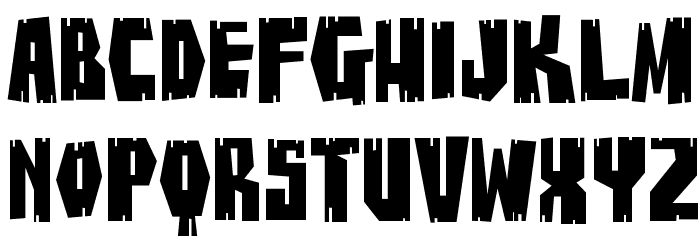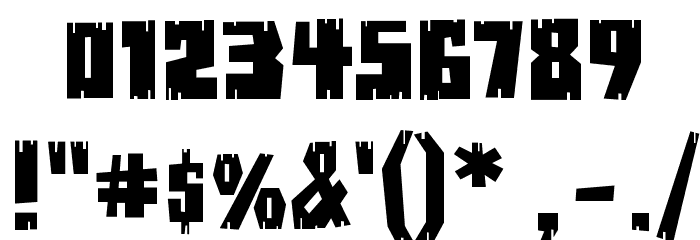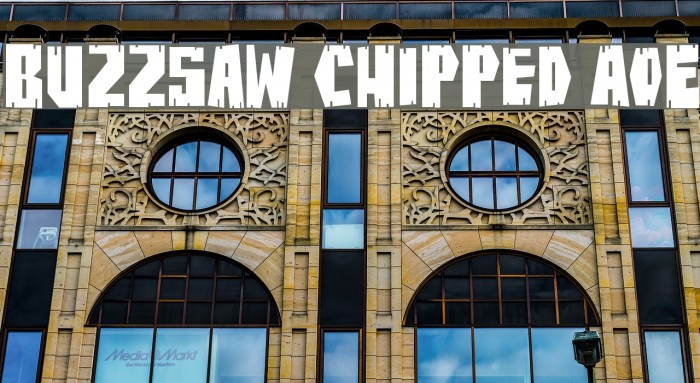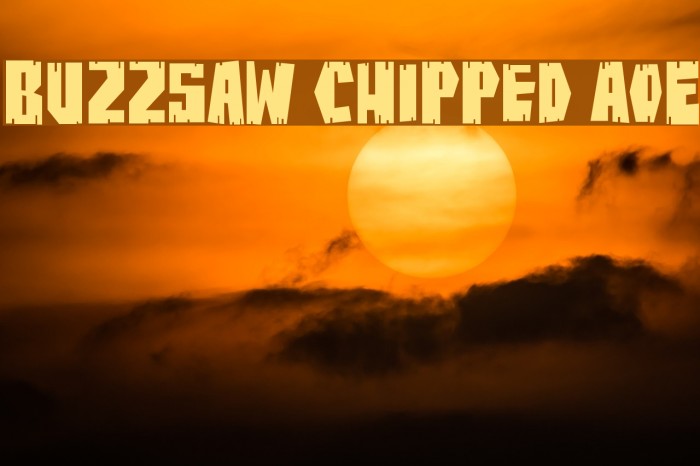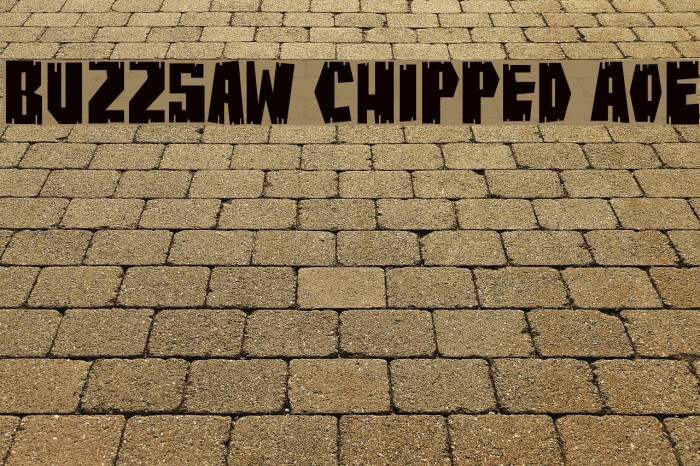
BuzzSaw Chipped AOE Font
This font features a bold and rugged design, characterized by its jagged and chipped edges that give it a distressed, industrial look. The uppercase letters are particularly striking, with sharp angles and irregular outlines that suggest a sense of movement and energy. The lowercase letters maintain this edgy aesthetic, providing a cohesive look across the alphabet. Numbers and special characters are equally bold, ensuring consistency throughout. This font's unique style makes it ideal for projects that require a strong visual impact, such as posters, logos, and headlines. Its distinctive appearance is sure to capture attention and convey a sense of boldness and creativity.
A bold, rugged font with jagged, chipped edges for a distressed, industrial look.
- Proposed Projects: Ideal for posters, logos, headlines, and any design needing a strong visual impact.